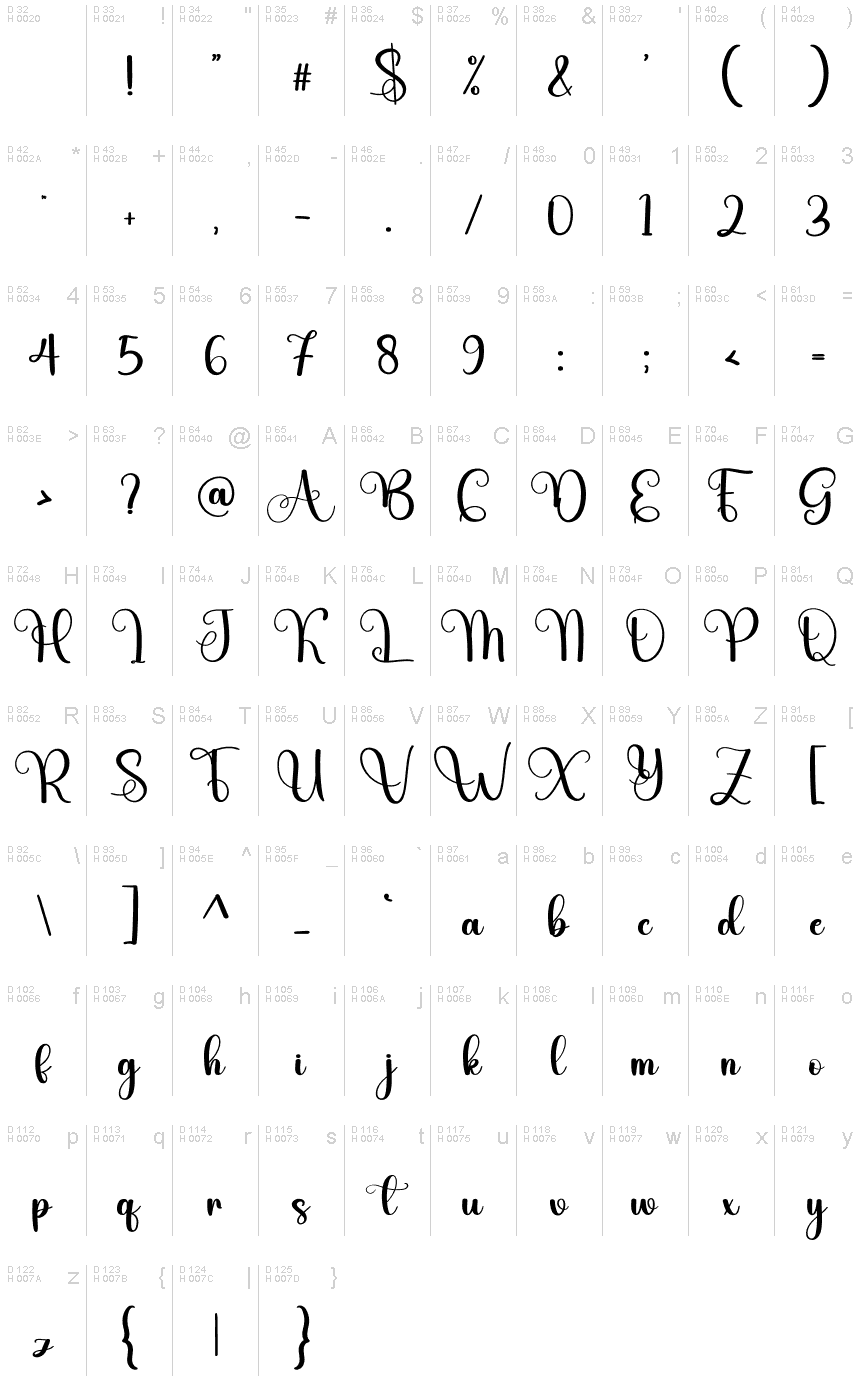
Bigfoot
Bigfoot, a mesmerizing calligraphy font by Harlek Studio, effortlessly blends elegance and playfulness. With its semi-light weight, this enchanting typeface is perfect for projects that demand a touch of sophistication without being overwhelming.
Its graceful strokes and flowing curves make it a splendid choice for wedding invitations, greeting cards, and branding materials seeking to evoke romance and charm. Additionally, Bigfoot's unique style adds an artistic flair to packaging designs, book covers, and logo creations.
This versatile font is certain to captivate viewers with its whimsical allure in any project it graces.